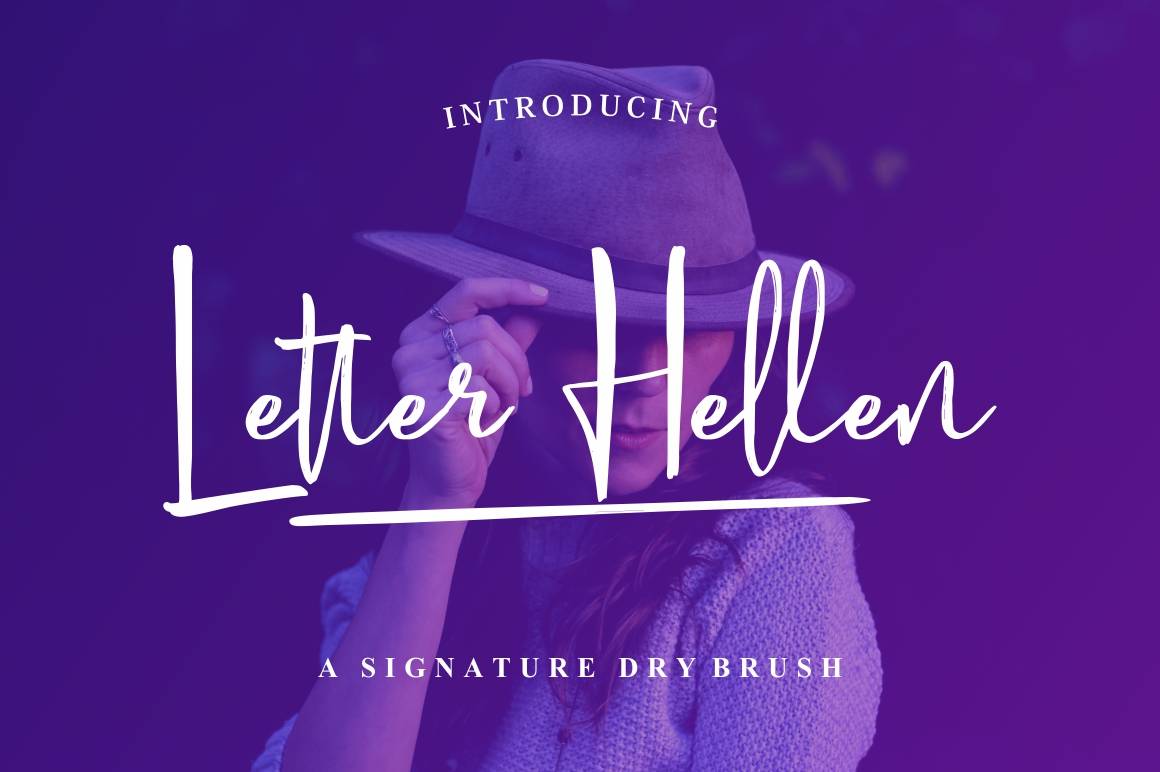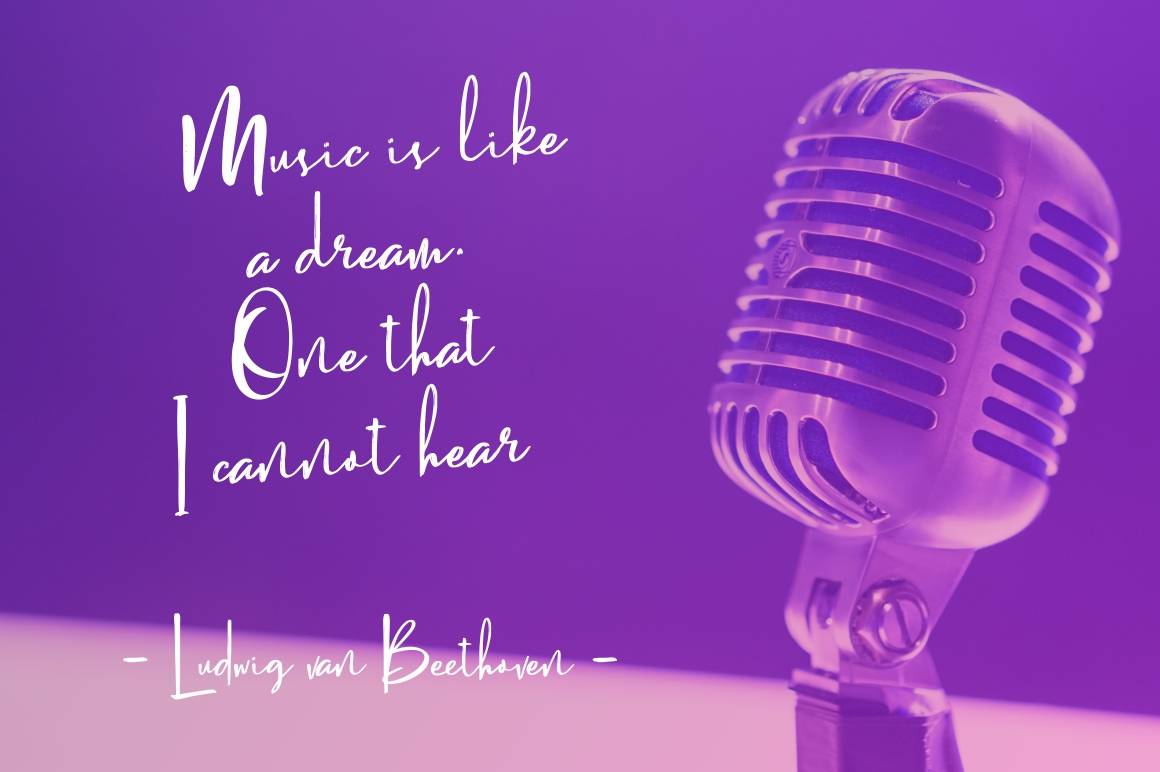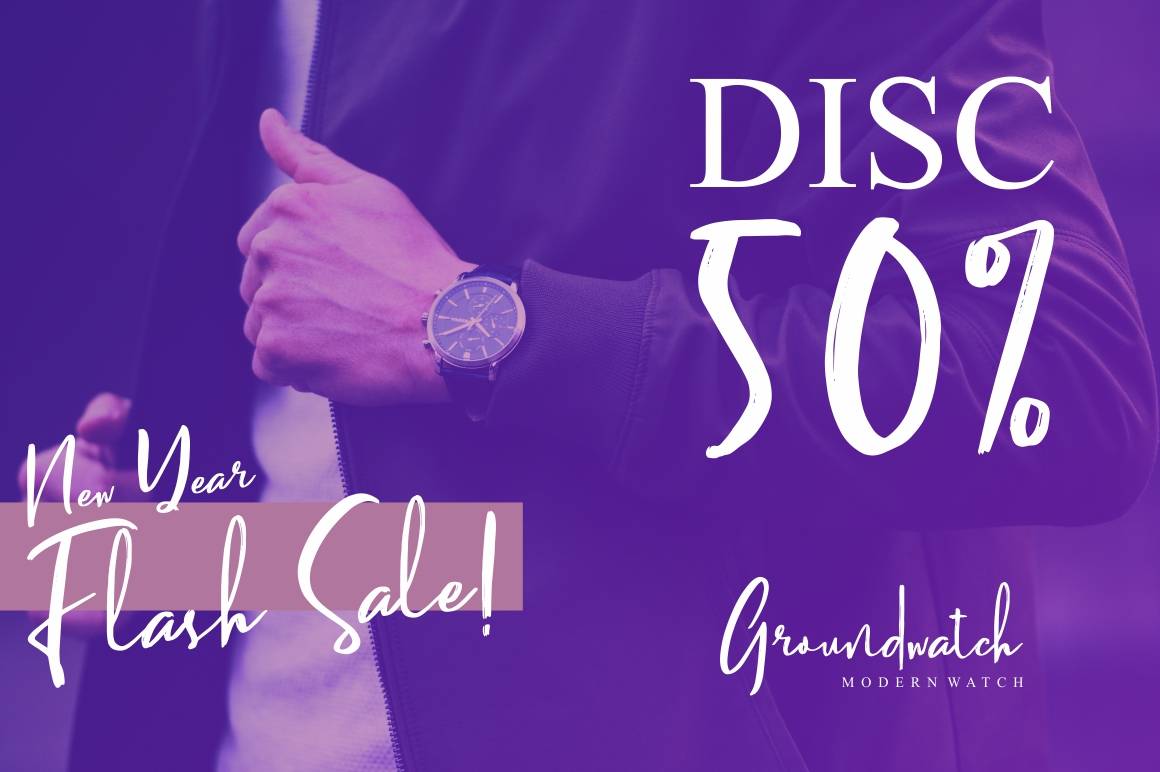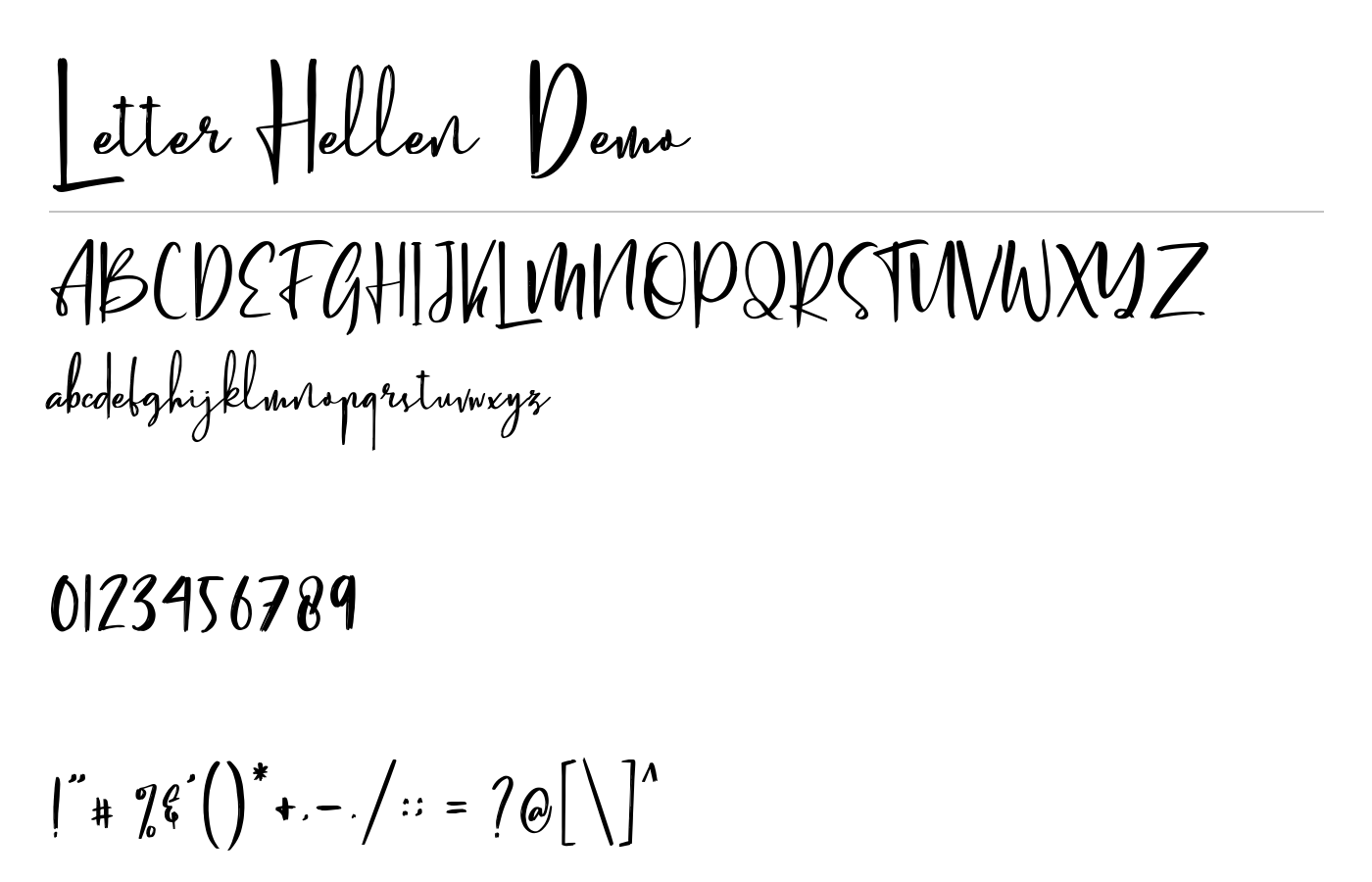
Letter Hellen Font is a playful and modern handwritten script with tall, narrow letterforms that convey a casual yet stylish vibe. Its irregular strokes and slightly whimsical shapes make it perfect for creative projects like branding, invitations, and social media graphics where a personal, lively touch is desired. This font stands out with its dynamic, legible characters, adding charm and character to headlines and logos.
Letter Hellen Font
| Font family | Letter Hellen Font |